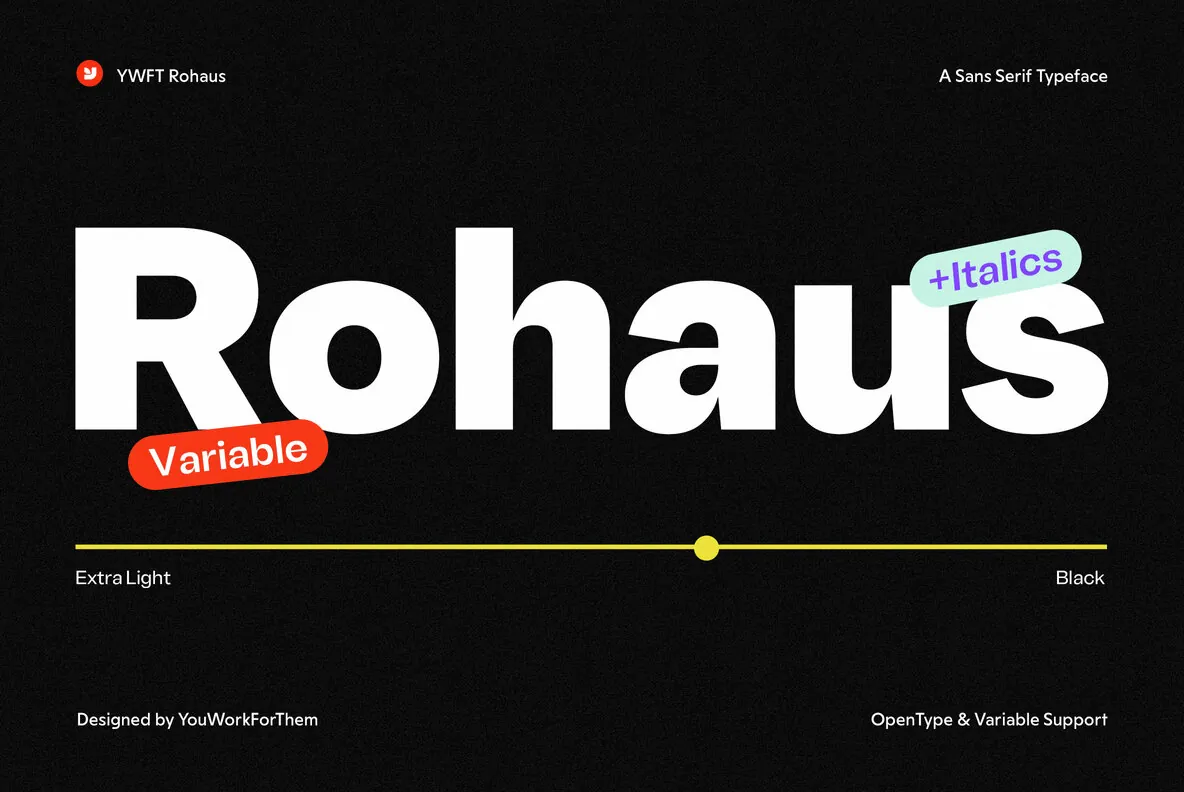
YWFT Rohaus: Swiss-Inspired Sans-Serif for Contemporary Design
YWFT Rohaus stands at the intersection of Swiss typographic precision and modern digital utility. Crafted with a clear focus on readability and flexibility, this sans-serif family offers graphic designers a versatile tool suited for a broad array of design environments. Its clean structure, paired with eight distinct weights and matching italics, ensures that both bold headlines and subtle details carry the same visual integrity. The inclusion of a variable font option allows tailored adjustments in weight and width, meeting the nuanced demands of responsive design.
Features
Eight weights with matching italics support comprehensive visual hierarchy
Opentype variable font enables seamless adaptability across digital and print projects
Over 500 glyphs per weight, supporting extensive multilingual character sets
This typeface is especially well-suited for UI and UX projects, where clarity and legibility take precedence. Its refined line quality translates effectively to mobile apps, websites, and software interfaces. YWFT Rohaus also excels in corporate communications, ensuring information is delivered with professionalism in presentations and reports, while its range of weights and consistent form make it a strong asset for brand identity work—from minimalist tech to luxury retail.
Editorial design benefits from Rohaus’s balance of tradition and modernity, offering an approachable yet sophisticated option for magazines, journals, and digital publications. Its flexible licensing and practical accessibility position it as an essential typeface for design studios and creative teams seeking a dependable, modern sans-serif solution grounded in the timeless ethos of Swiss design.